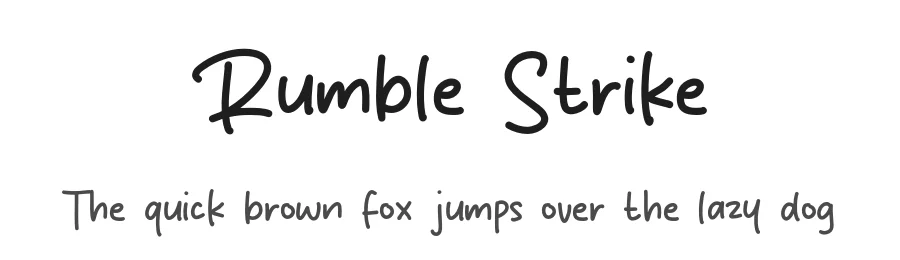
About Brozettany Font
| Font Family | Brozettany |
| Full Name | Brozettany |
| PostScript Name | Brozettany |
| Designer | IqbalPauji |
Brozettany Font is a script font that shines as a display or heading face. Pair it with a clean sans-serif or serif font for body text β the contrast creates a clear hierarchy while the two styles stay balanced and easy to read.
Brozettany Font
by Bale